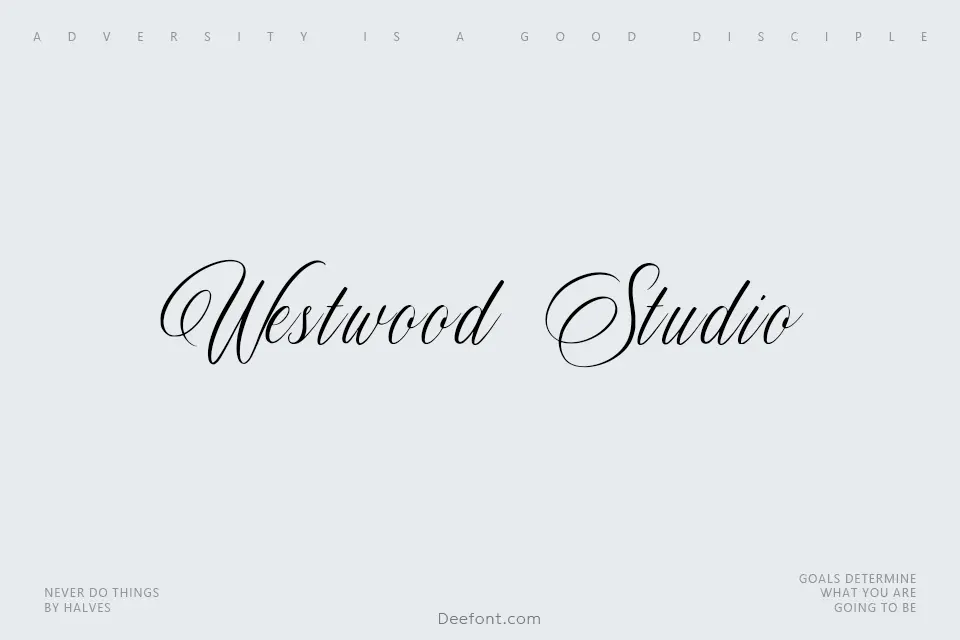
Westwood Studio Font
Westwood Studio Font is a contemporary calligraphy typeface designed by Octotype, released in 2022. Characterized by its elegant, flowing script style, it combines modern aesthetics with classic handwritten charm, making it ideal for invitations, logos, and creative projects. The font includes partial accent support and Euro symbols, catering to basic multilingual needs. While free for personal use, commercial licensing requires direct contact with the designer. Its balanced curves and dynamic strokes offer versatility for both digital and print applications.